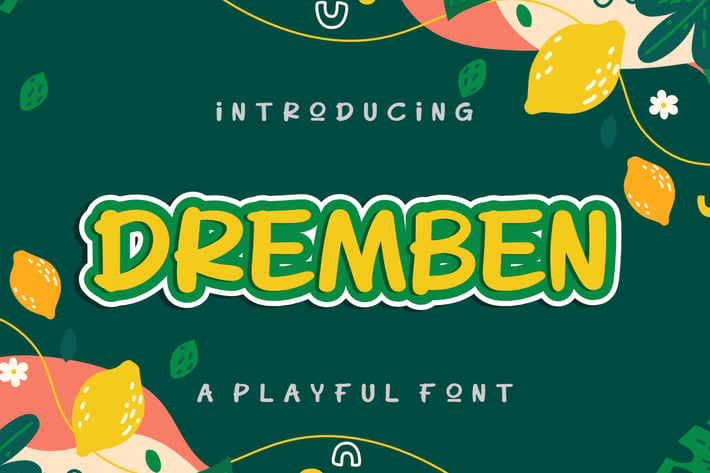
Dremben a Playful Font
Dremben a Playful Font, This font is made with a high premium quality level which you can use as flyers, quotes, posters, banners, packaging, merchandise, logotypes and much more.